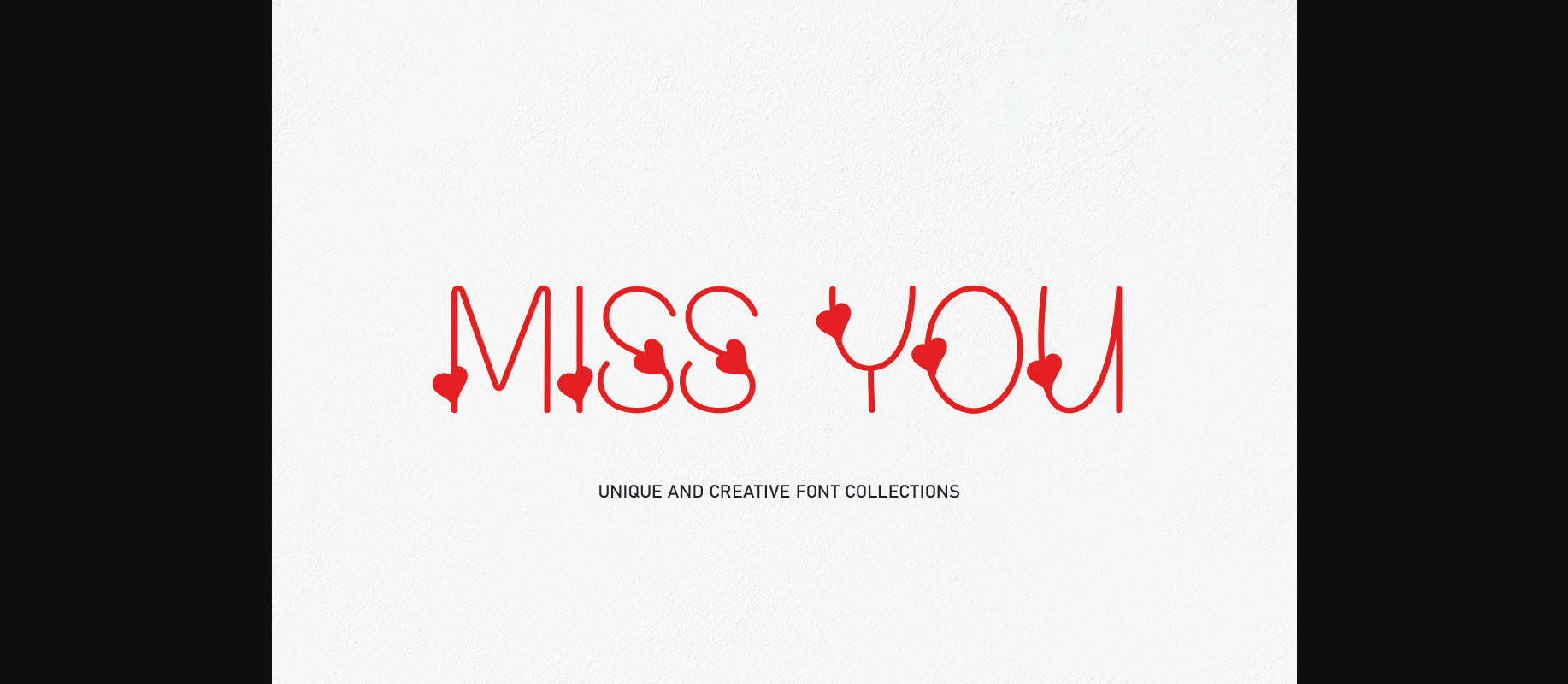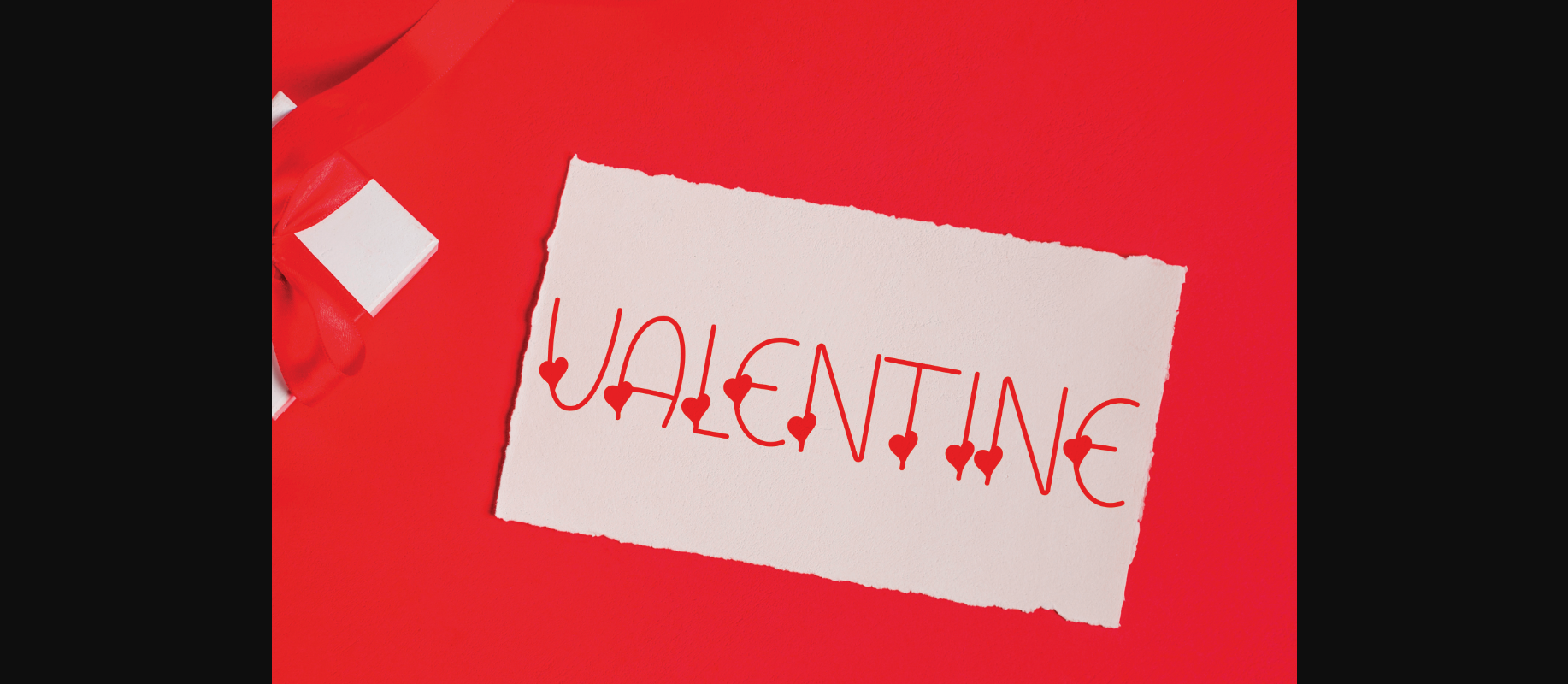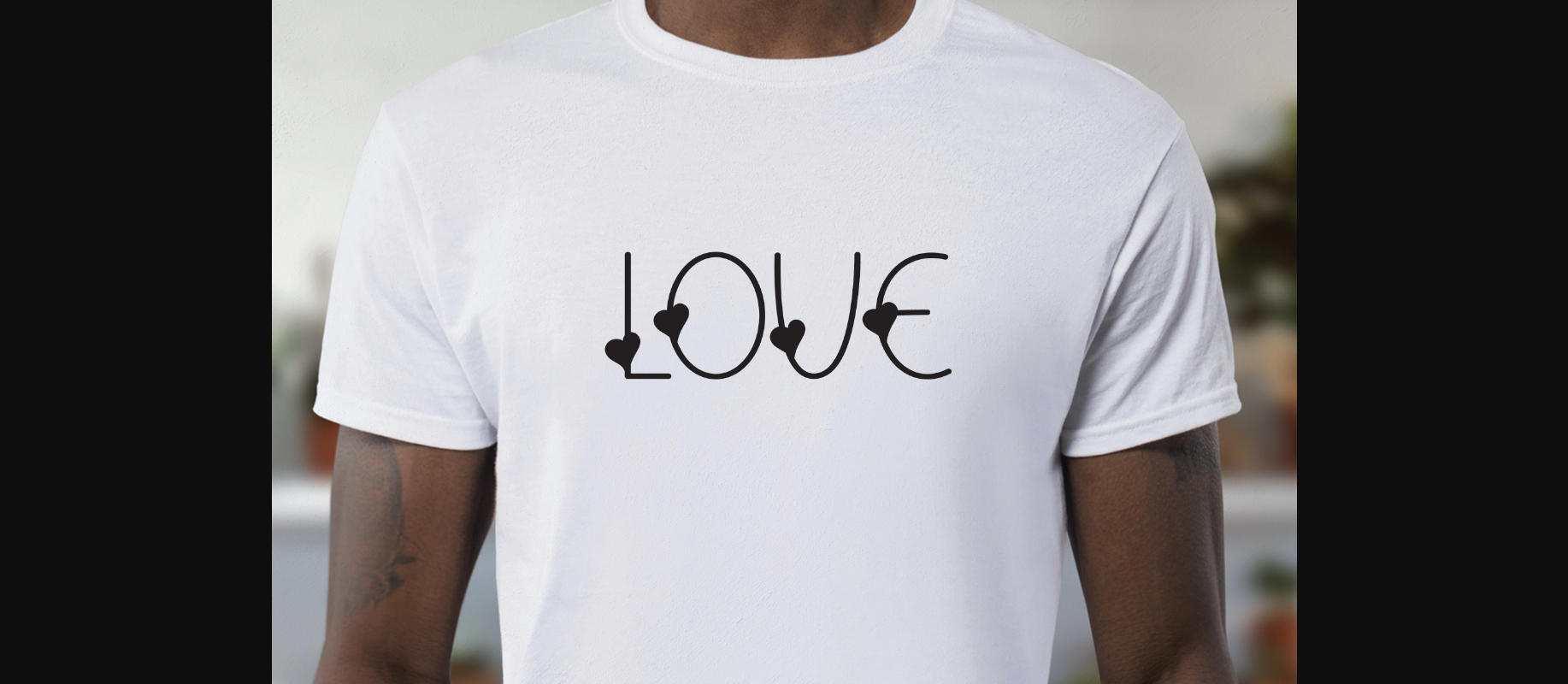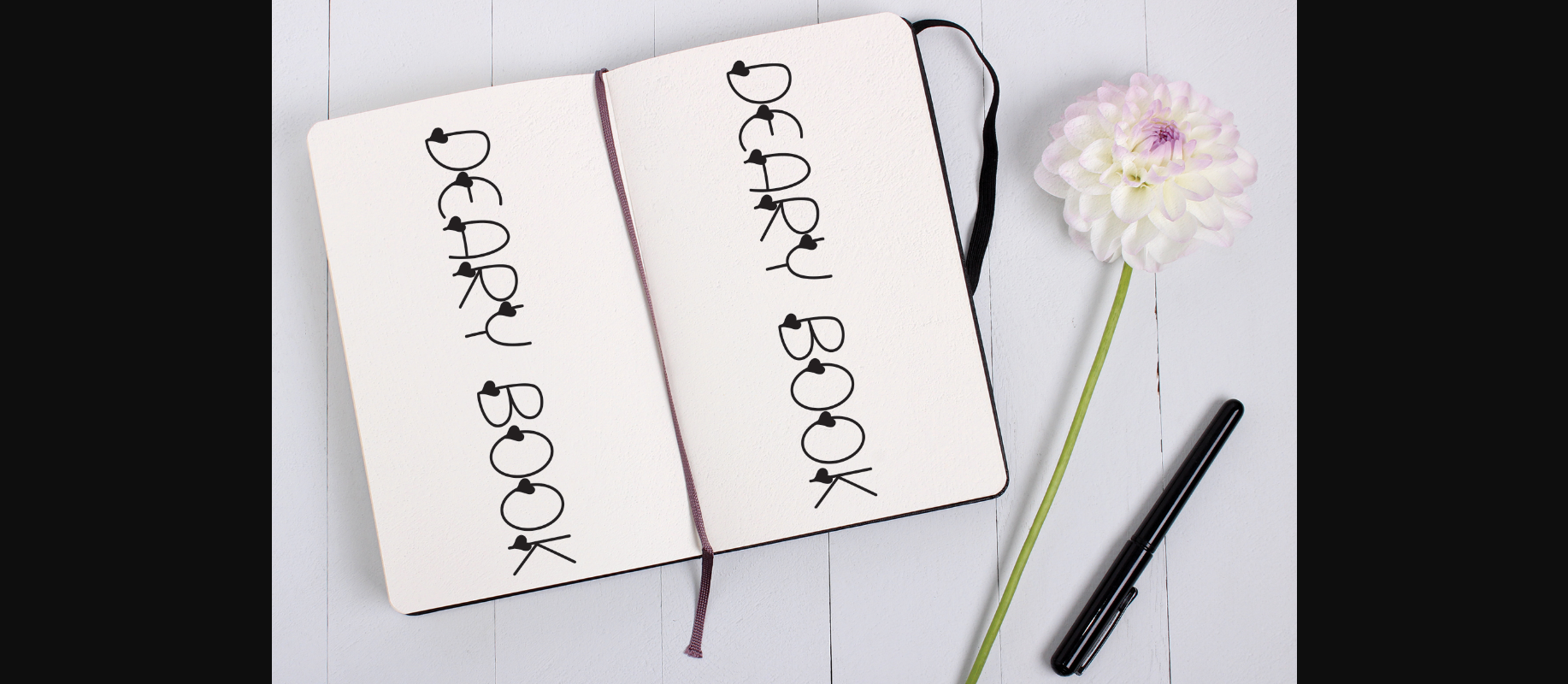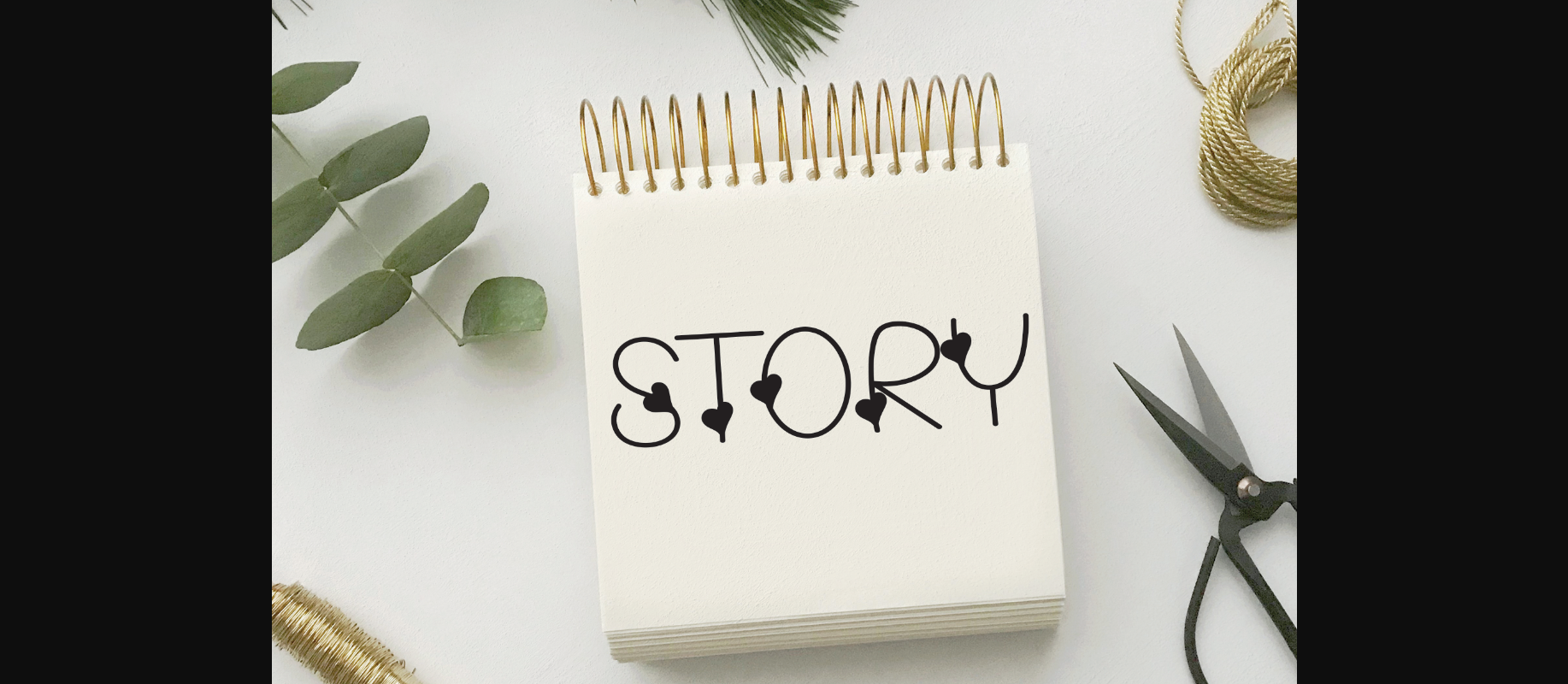
About Miss You Font
this is a simple and thin case script font. Fall in love with its ravishing style and use it to create gorgeous wedding invitations, beautiful stationary art, engaging social media posts and more!